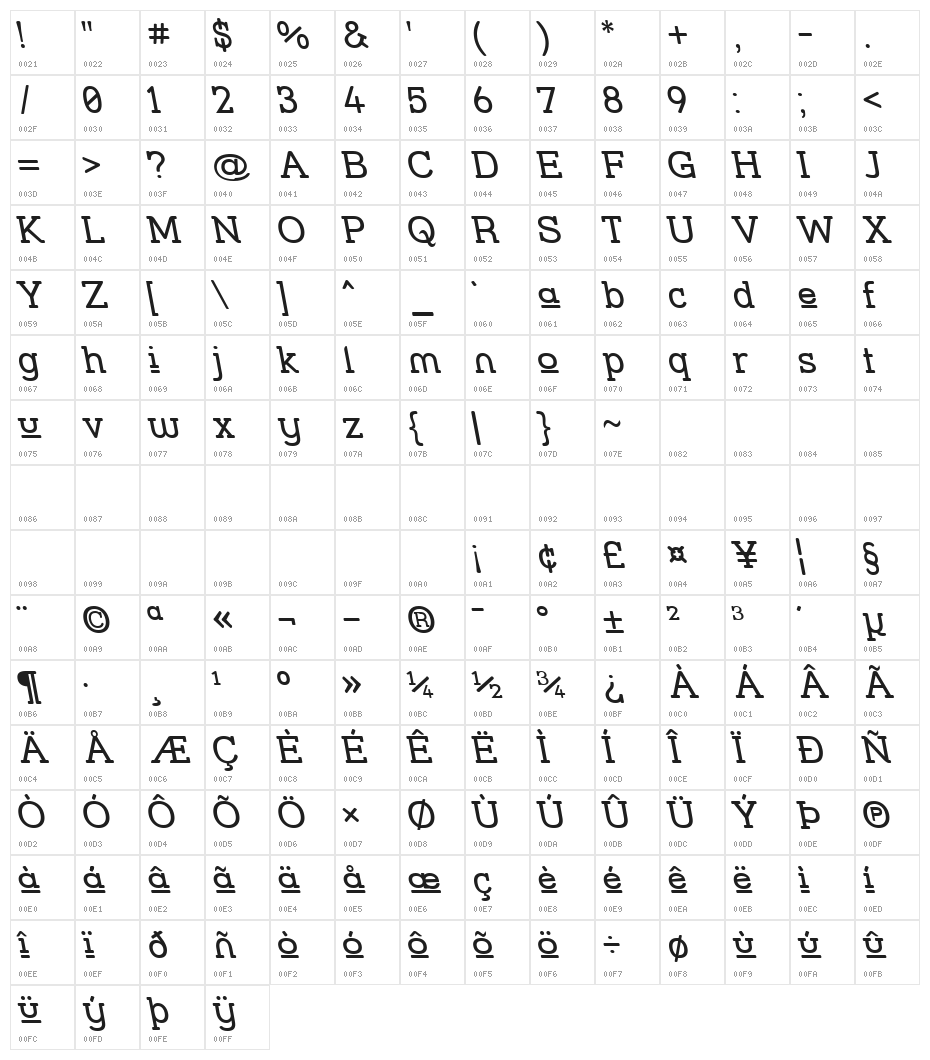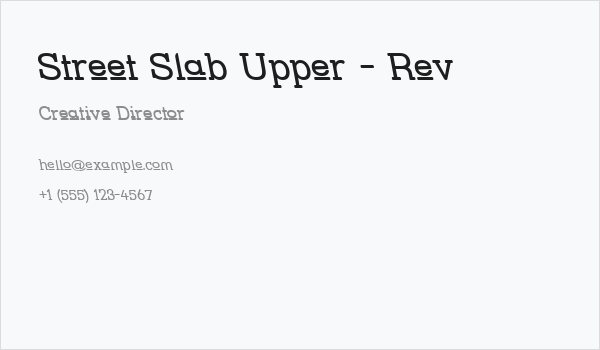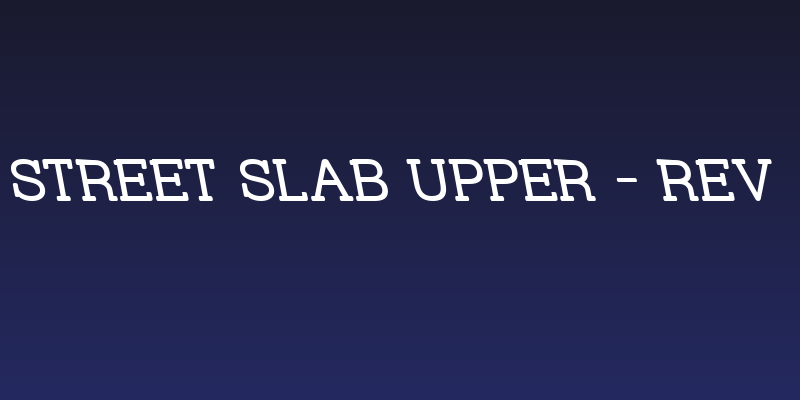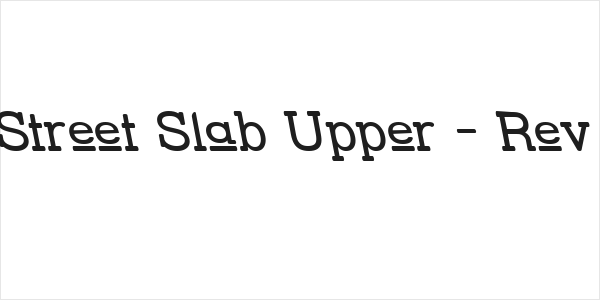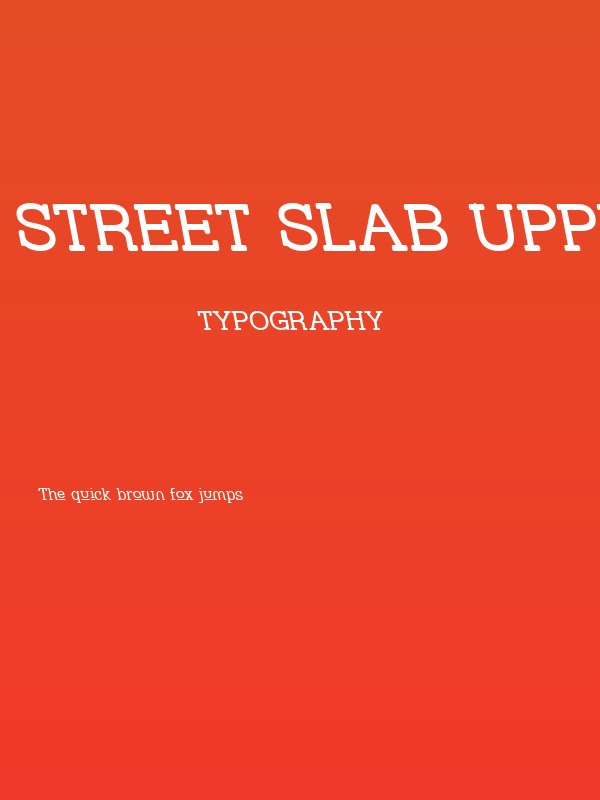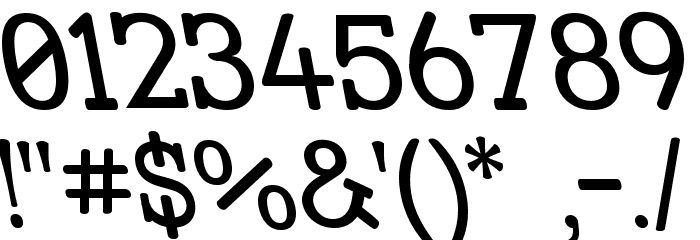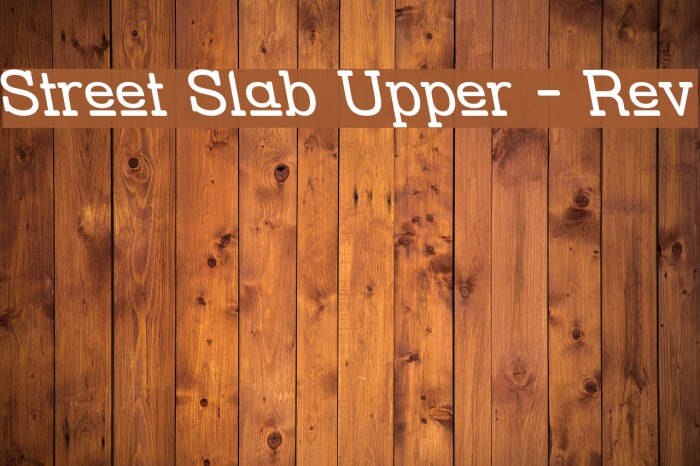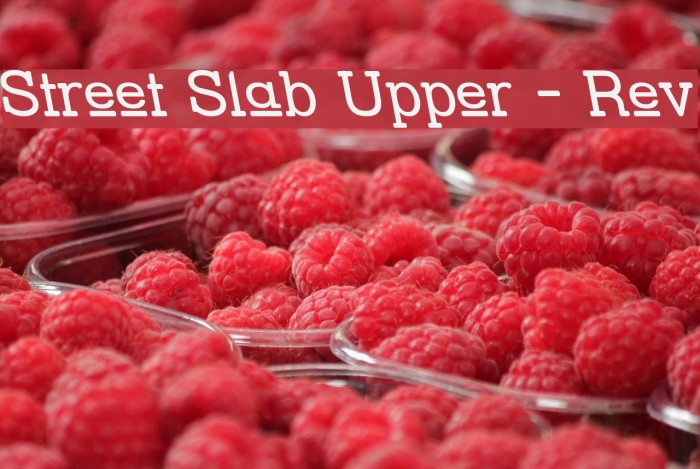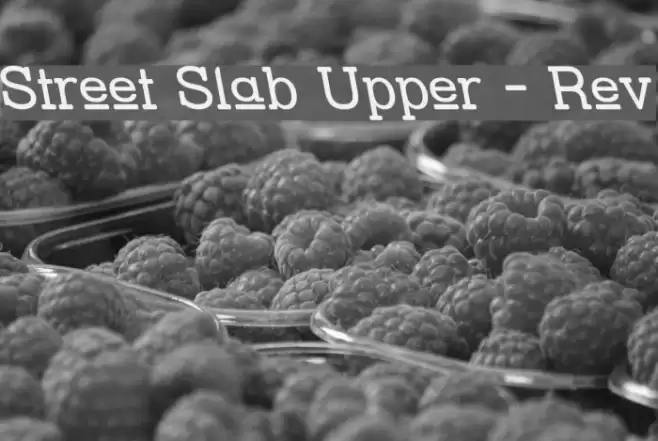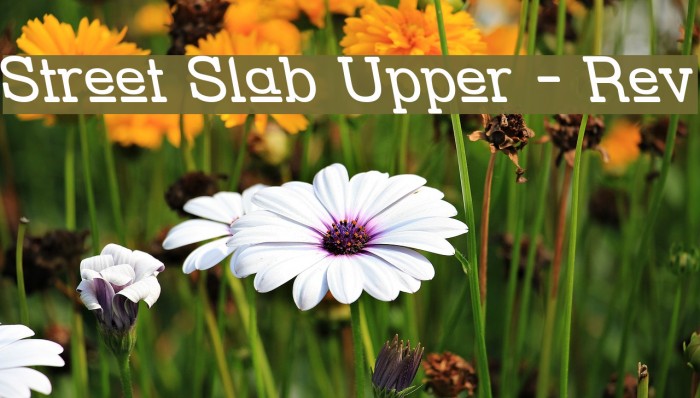
Street Slab Upper - Rev Font
Street Slab Upper - Rev Description
This font features a robust and bold slab serif style, characterized by thick, block-like serifs that give it a strong and authoritative presence. The uppercase letters are uniformly structured with a consistent height, while the lowercase letters maintain a similar width, ensuring readability and balance. The numerals are clear and distinct, making them suitable for various applications. The special characters are well-defined, complementing the overall design. This font's boldness and clarity make it ideal for impactful headlines and attention-grabbing text.
| Proposed Projects | Ideal for headlines, posters, branding, and any project requiring a strong visual impact. |